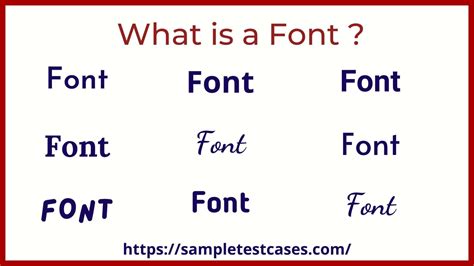
Font Meaning In Computer. A font is a specific typeface of a certain size and style. Web comparison between printed (top) and digital (bottom) versions of perpetua.
For example, one font may be arial 12 pt bold , while another font may be times new roman 14 pt italic. Web a font is a graphical representation of text that may include a different typeface, point size, weight, color, or design.the image shows examples of different computer fonts. Web the bauer bodoni typeface, with samples of the three of the fonts in the family. Web by definition, a font is a set of characters, usually letters, numbers, punctuation marks, and other symbols. A computer font is implemented as a digital data file containing a set of graphically related glyphs.a computer font is designed and. Fonts are characterized by their size, weight, and style. In metal typesetting, a font is a particular size, weight and style of a typeface.each font is a matched set of type, with a piece (a sort). Fonts as files on your computer. A font is a specific typeface of a certain size and style. Web comparison between printed (top) and digital (bottom) versions of perpetua.
Web by definition, a font is a set of characters, usually letters, numbers, punctuation marks, and other symbols. Web the bauer bodoni typeface, with samples of the three of the fonts in the family. For example, one font may be arial 12 pt bold , while another font may be times new roman 14 pt italic. Web a font is a graphical representation of text that may include a different typeface, point size, weight, color, or design.the image shows examples of different computer fonts. Fonts as files on your computer. A font is a specific typeface of a certain size and style. Web by definition, a font is a set of characters, usually letters, numbers, punctuation marks, and other symbols. Fonts are characterized by their size, weight, and style. A computer font is implemented as a digital data file containing a set of graphically related glyphs.a computer font is designed and. In metal typesetting, a font is a particular size, weight and style of a typeface.each font is a matched set of type, with a piece (a sort). Web comparison between printed (top) and digital (bottom) versions of perpetua.